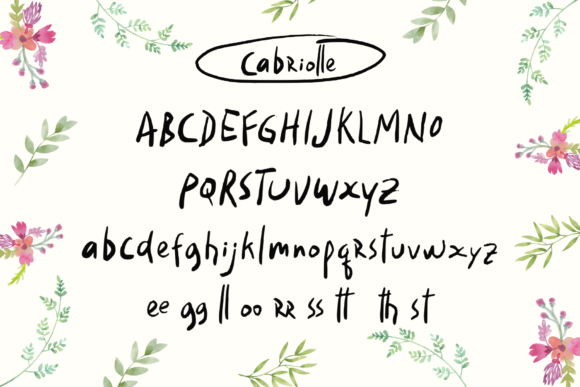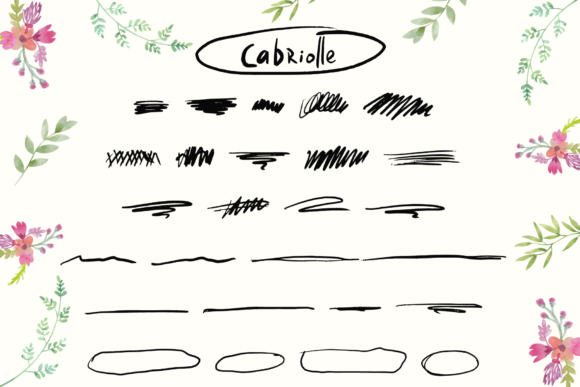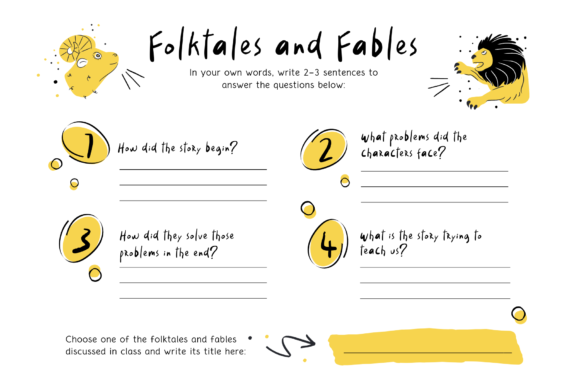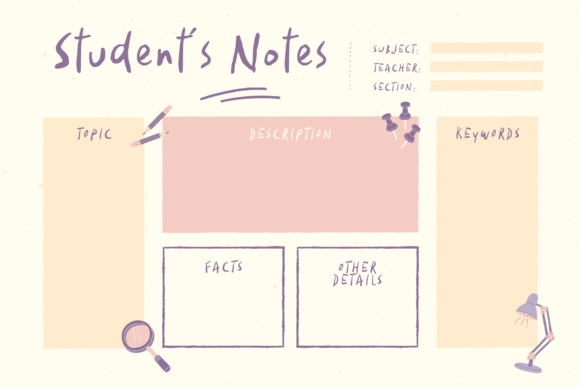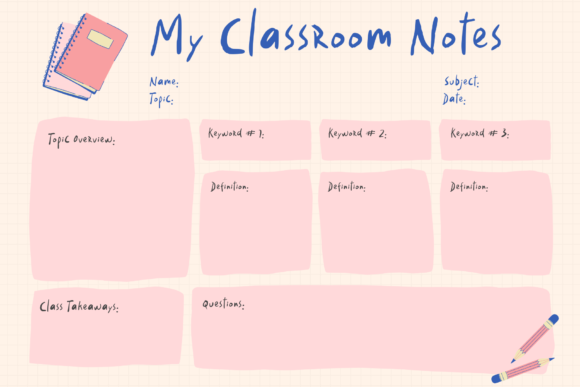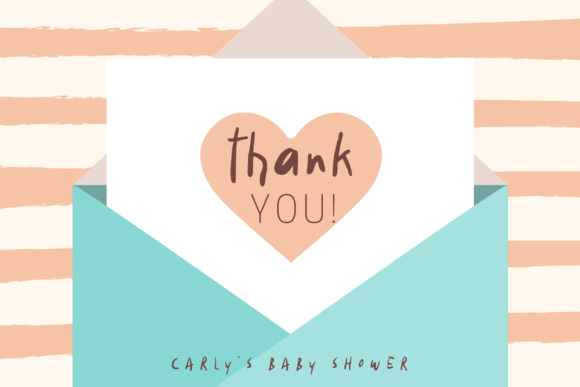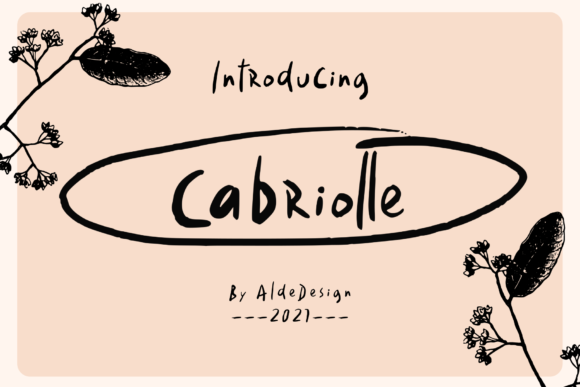
Cabriolle Font: Elevate Your Designs with a Cool and Trendy Handwritten Style
In the world of typography, a font can make or break a design. If you’re a designer or crafter looking for a unique and stylish handwritten font to add a personal touch to your creations, look no further than Cabriolle Font. This cool and trendy font is sure to take your designs to the next level, and in this article, we’ll explore what makes Cabriolle so special and how you can use it to elevate your work.
What is Cabriolle Font?
Cabriolle Font is a modern, handwritten font that exudes a sense of elegance and sophistication. Its fluid strokes and dynamic letterforms give it a lively, energetic feel that’s perfect for a wide range of design projects. Whether you’re working on a logo, branding materials, social media graphics, or craft projects, Cabriolle Font is sure to add a touch of personality and style.
One of the standout features of Cabriolle Font is its PUA (Private Use Area) encoding. This means that you can access all the glyphs and swashes with ease, giving you maximum flexibility and creative control. With PUA encoding, you can effortlessly add flourishes and decorative elements to your text, making it truly unique and eye-catching.
Key Features of Cabriolle Font
- Handwritten style: Cabriolle Font boasts a beautiful, handwritten style that’s perfect for adding a personal touch to your designs.
- PUA encoded: With PUA encoding, you can access all glyphs and swashes with ease, making it simple to customize your text.
- Cool and trendy: Cabriolle Font has a cool, trendy vibe that’s sure to appeal to designers and crafters looking for a modern, stylish font.
- Versatile: This font is suitable for a wide range of design projects, from logos and branding materials to social media graphics and craft projects.
How to Use Cabriolle Font in Your Designs
Using Cabriolle Font in your designs is easy. Here are a few tips to get you started:
- Pair it with other fonts: Cabriolle Font pairs well with a variety of other fonts, so don’t be afraid to experiment with different combinations to find the perfect look for your design.
- Experiment with swashes and glyphs: With PUA encoding, you can easily add swashes and glyphs to your text to give it a unique, customized look.
- Use it for headings and titles: Cabriolle Font is perfect for headings and titles, where its bold, expressive letterforms can really make an impact.
- Add it to your craft projects: Whether you’re working on a scrapbooking project, a handmade card, or a DIY gift tag, Cabriolle Font is sure to add a touch of personality and style.
Why Choose Cabriolle Font?
With so many fonts to choose from, why should you choose Cabriolle Font? Here are a few reasons:
- Unique and stylish: Cabriolle Font is a truly unique and stylish font that’s sure to set your designs apart.
- Easy to use: With PUA encoding, using Cabriolle Font is easy and straightforward.
- Versatile: This font is suitable for a wide range of design projects, making it a great addition to your font library.
- High-quality: Cabriolle Font is a high-quality font that’s designed to deliver great results, every time.